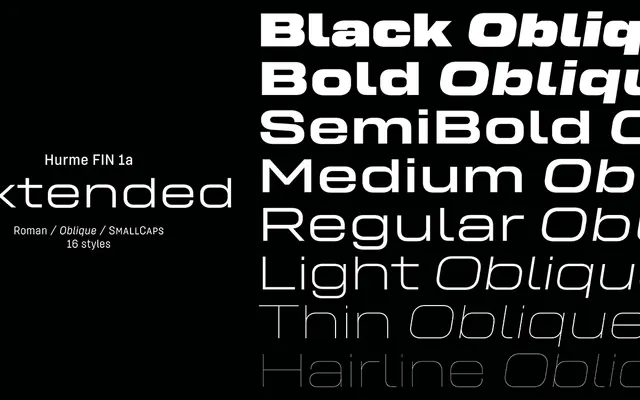
Hurme FIN 1a Extended
A monolinear grotesque in the extended width cut, offering eight weights with obliques as part of a nine-width, 144-style superfamily.
The Extended variant sits near the wider end of the Hurme FIN 1a width axis, which runs from Compressed through to Expanded across nine distinct widths. Horizontal stroke terminals and short ascenders and descenders give the design a clean, utilitarian quality, and optically adjusted obliques accompany each of the eight weights from Hairline to Black. Purchasing the Extended also grants access to the corresponding FIN 1b weights, which swap in angular and slab-serif-inflected alternates as default characters.
A simplified monolinear sans-serif with horizontal stroke terminals and short ascenders and descenders, placing it firmly in the grotesque tradition. The design spans a large width axis across nine variants.